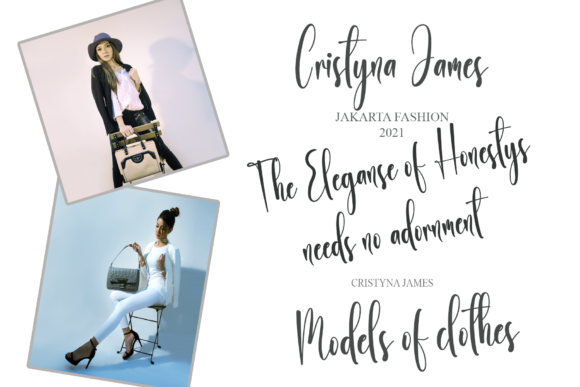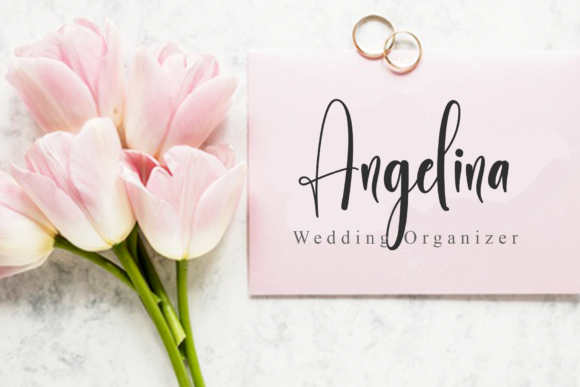
Black Pastel Font
db-ku.com - Script & Handwritten -- Black Pastel is a sweet and delicate handwritten font. Dainty and joyful, this font will be ideal for writing wedding invitations, cards or any other design that may need a romantic, personalized touch!